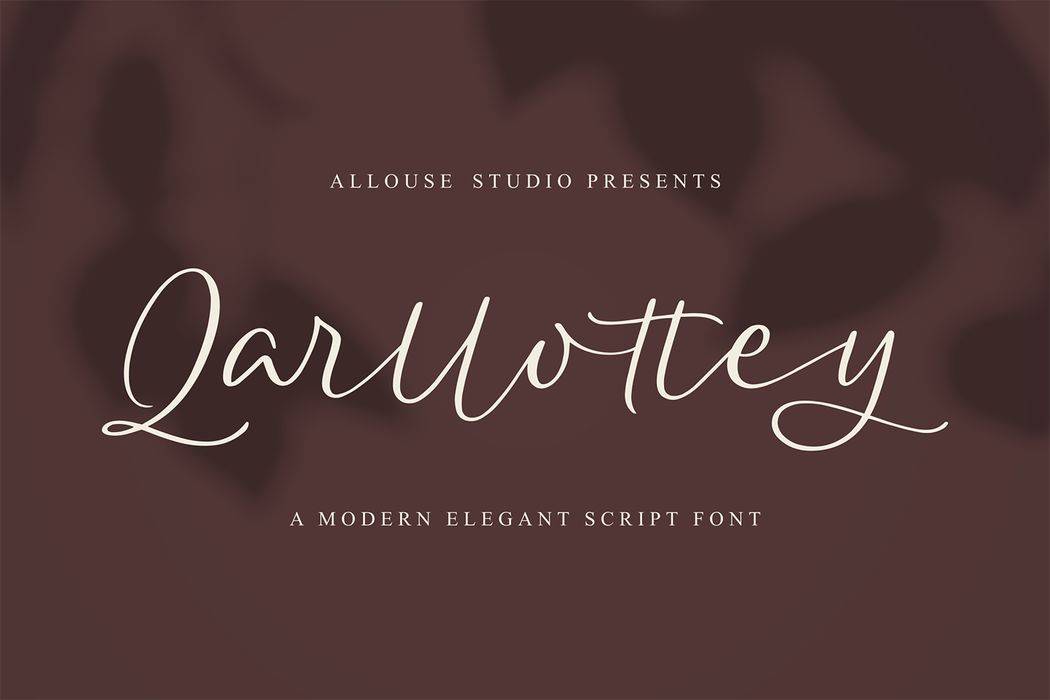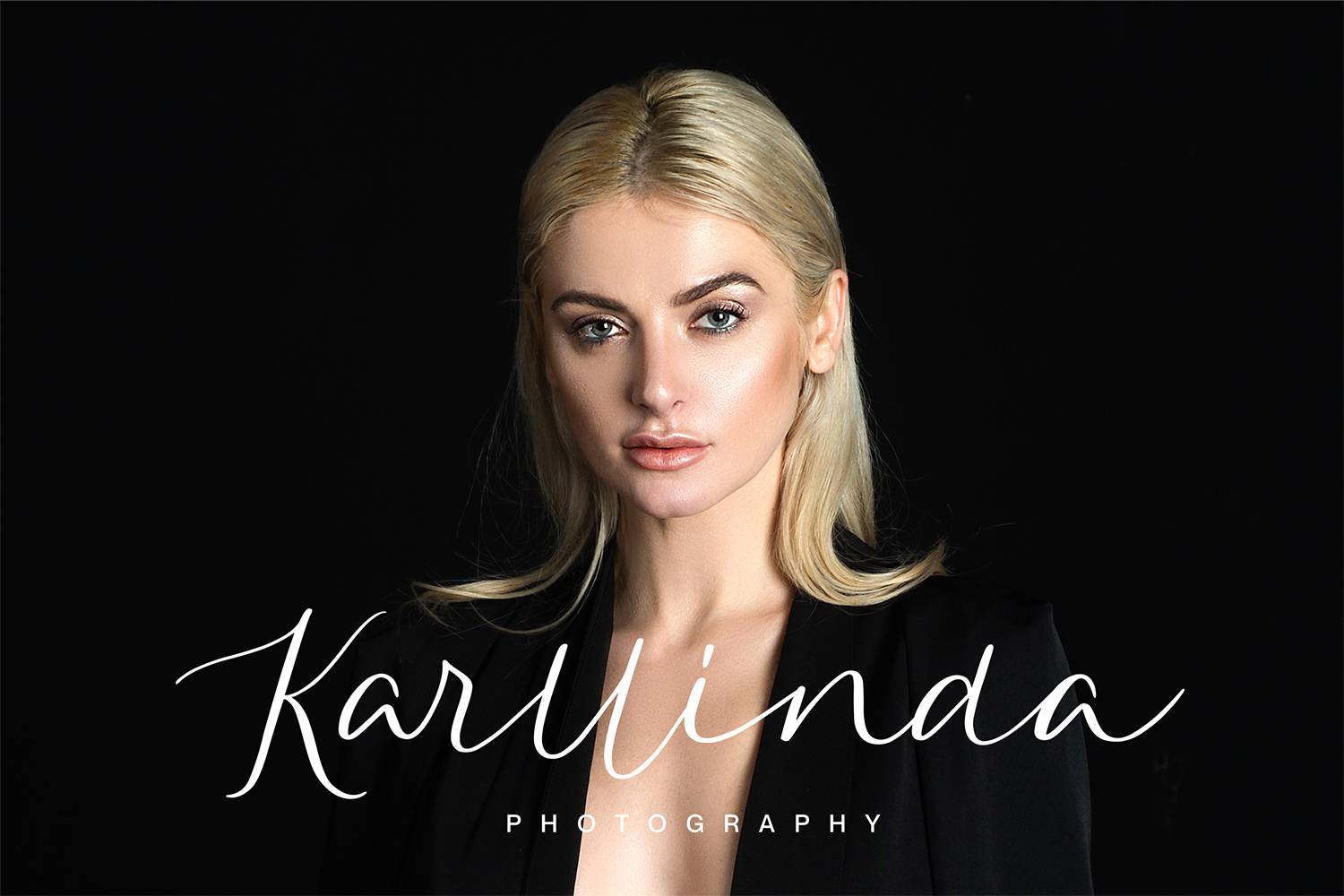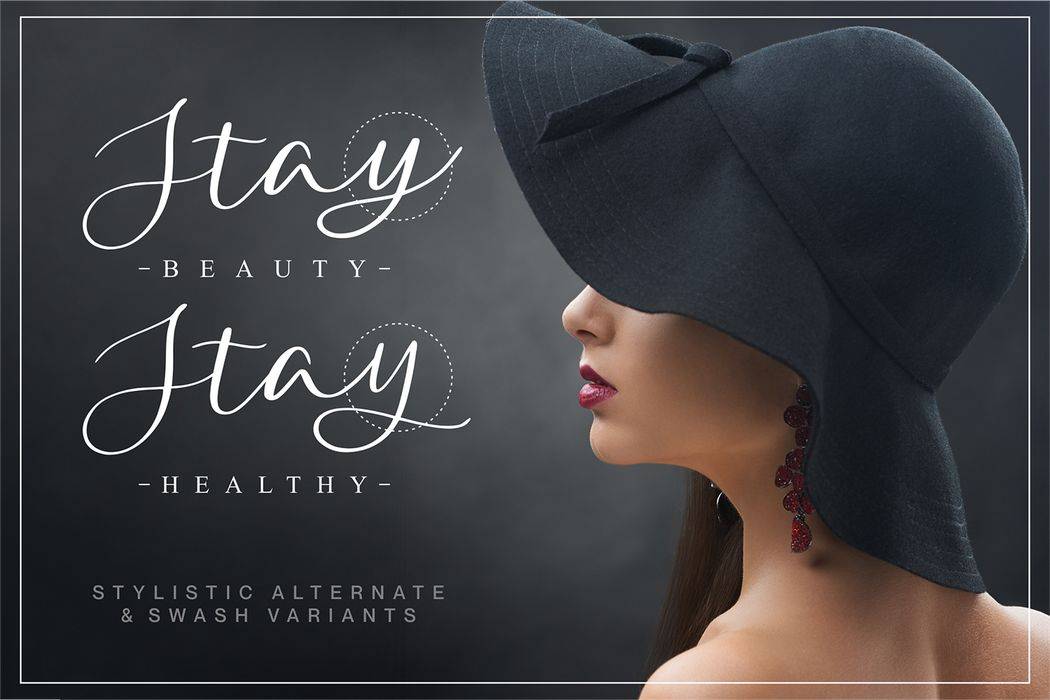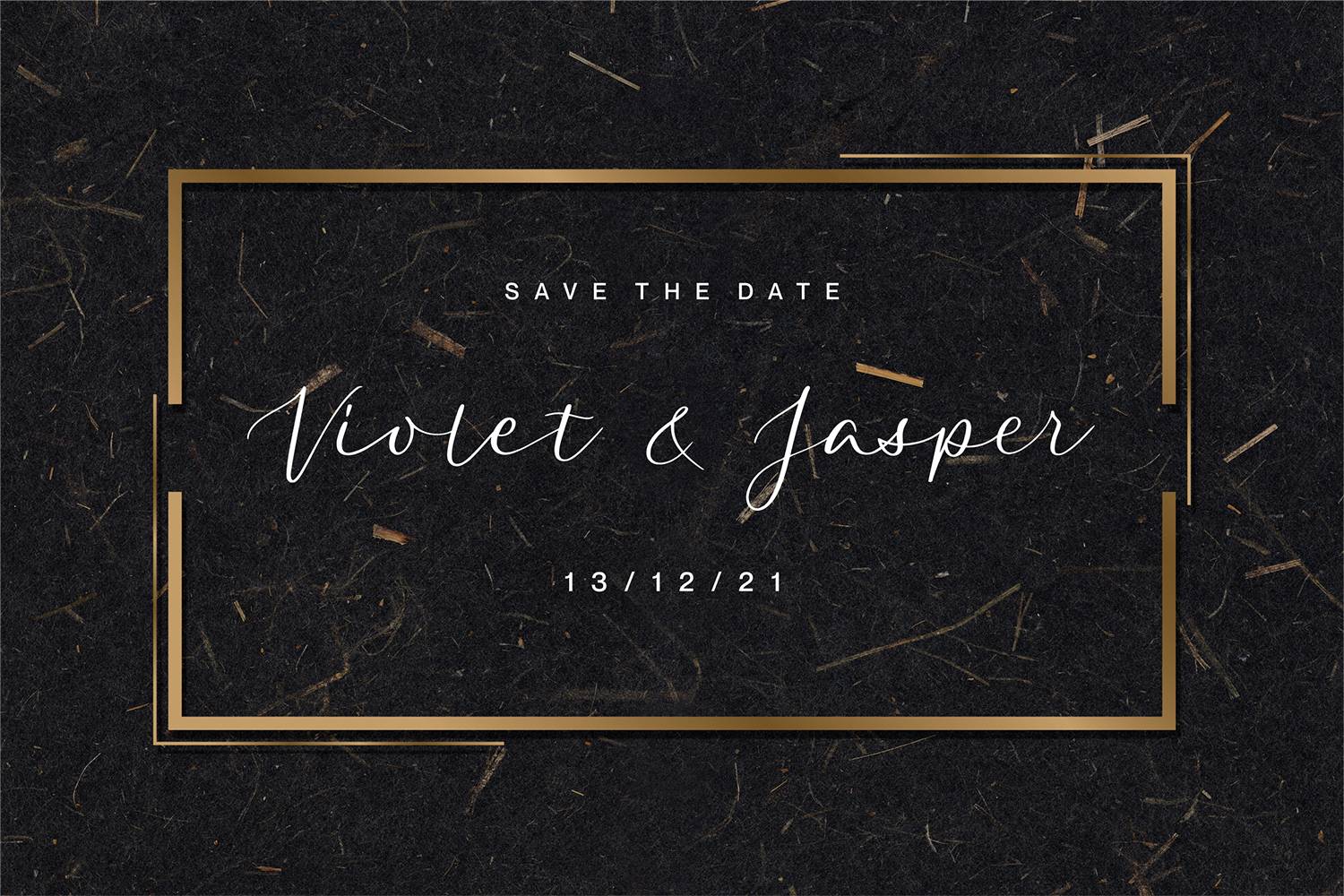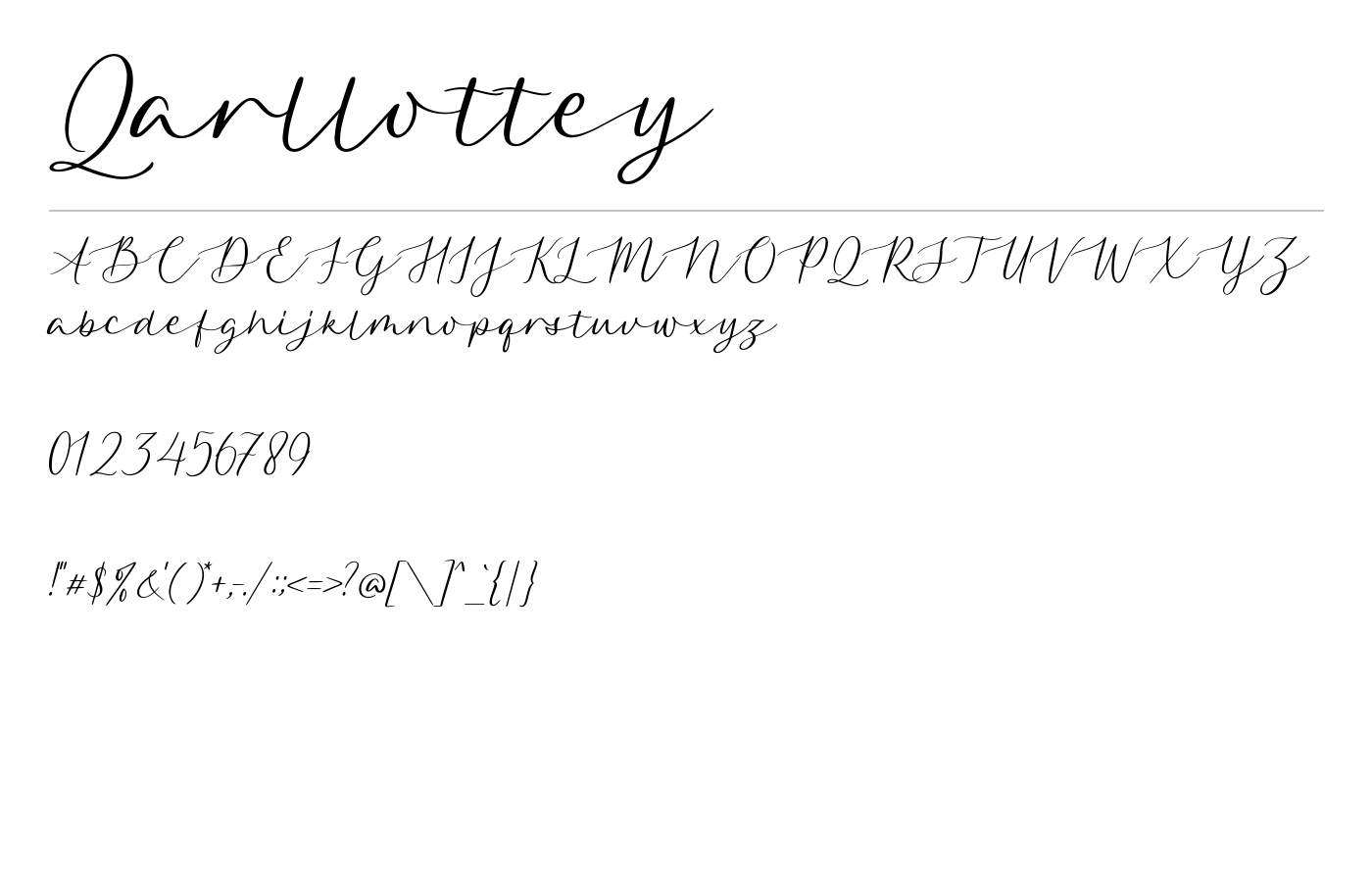
Qarllottey is an elegant, handwritten script font characterized by its delicate, flowing strokes and light weight. It features a smooth, graceful style with high contrast between thin and slightly thicker lines, creating a sophisticated yet approachable look ideal for luxury branding, invitations, and stylish logos. This font's refined and airy letterforms offer a romantic, personal touch that works beautifully in creative projects needing a chic and modern handwritten feel.
Qarllottey Font
About Qarllottey Font